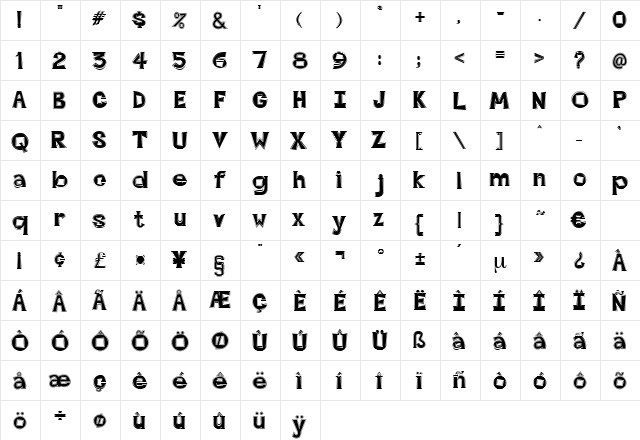
OnedinInline Regular
Design Context for OnedinInline Typeface
OnedinInline brings ornamental detail and strong personality to headlines and identities, where visual impact matters more than quiet functionality.
Font Pairing: Pair with a clean neutral sans-serif for body copy to let OnedinInline's character lead without overwhelming the composition.
Pro Tip: Use OnedinInline exclusively at display sizes — it was designed to be seen, not read at length. Let a neutral companion handle body copy.